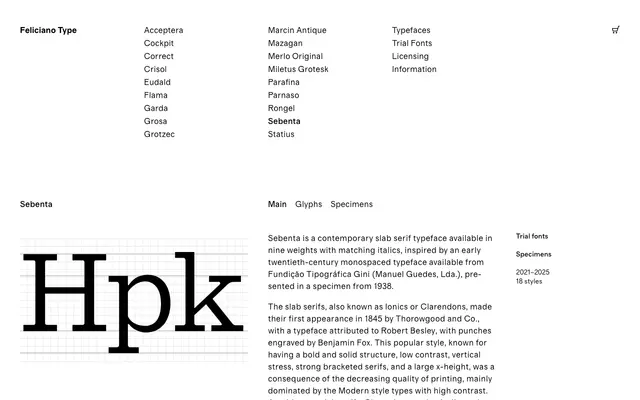
Sebenta
Feliciano Type · 2021
A nine-weight slab serif drawing on Clarendon conventions while introducing old-style terminals, inspired by a 1938 Portuguese type specimen.
Sebenta takes the low-contrast, bracketed-serif structure of the Clarendon tradition and tempers it with angled terminals borrowed from old-style typefaces like Bookman, applied to both capitals and lowercase. The result softens the industrial solidity typical of most slab serifs with gentle modulations and ball terminals, giving the family an unusual warmth for the genre. Eighteen styles across nine weights with matching italics make it a credible workhorse for editorial, print and screen contexts.
Sebenta is explicitly described as a slab serif in the Clarendon tradition, with low contrast, vertical stress and strong bracketed serifs, though it introduces old-style formal elements rather than a strictly modern type structure.